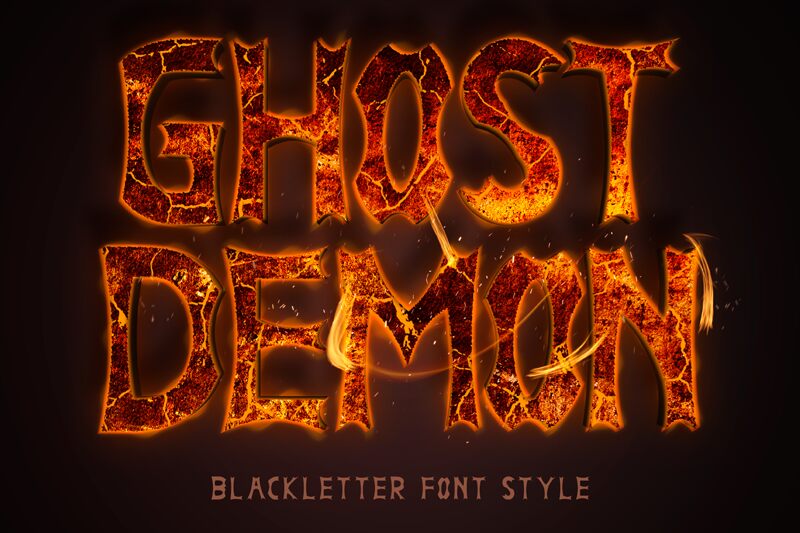
Ghost Demon font is a free font designed by Yoga Letter as an homage to old tales about ghosts, dark forests, and full moons. This holiday font is inspired by horror stories with gothic themes, and it presents unusual shapes that always keep readers curious about the rest of the text. The contrast of two or more separate and yet similar elements forming the font makes it both gothic and mysterious.
Ghost Demon holds great potential to be used in designs related to horror book covers, video games packaging, watermarks or signature logos, new projects on auto visual youtube channels, social media posts, and branding projects. It can be used on packaging and websites, where its frightful lettering will easily attract visitors. T-shirts, flyers, personal invitations, and advertisements are part of the long list of places Ghost Demon can be used too.